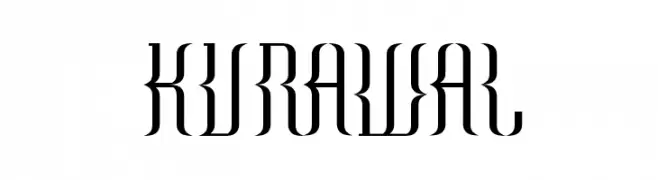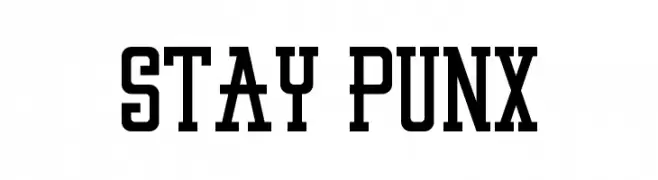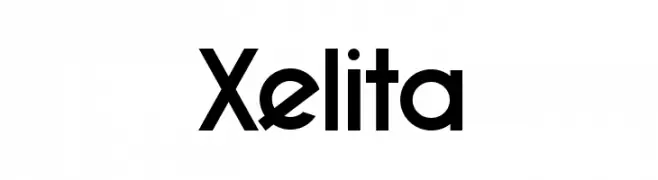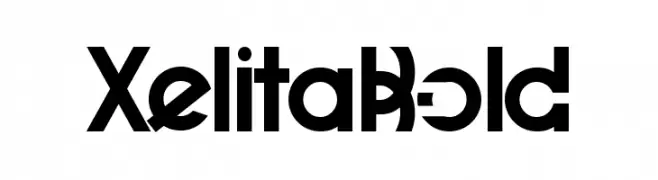
( Xerographer Fonts - Max Infeld - xerographer.blogspot.com )
A playful, zigzag-patterned decorative font with a hand-drawn look.
( Xerographer Fonts - Max Infeld - xerographer.blogspot.com )
A bold, geometric font with a modern and striking design.
( Xerographer Fonts - Max Infeld - xerographer.blogspot.com )
A bold, italic font with a modern, geometric design and dynamic style.
( Xerographer Fonts - Max Infeld - xerographer.blogspot.com )
A bold, geometric font with a modern and angular design.
( Yanto Purnomo )
A geometric, angular font with a modern, futuristic style.
( aiyari - Ricky Rinaldi - creativemarket.com/Aiyari )
A modern, high-contrast font with sharp, angular serifs and a Gothic-inspired style.
( aurilia - aurilia nlk )
A bold, geometric font with an industrial and vintage feel.
( imagex - www.imagex-fonts.com )
A bold, distressed font with a grunge texture and strong, blocky characters.
( imagex - www.imagex-fonts.com )
A bold, decorative font with intricate patterns and elegant script elements.
( imagex - www.imagex-fonts.com )
A bold, rugged font with a hand-crafted, vintage appearance.